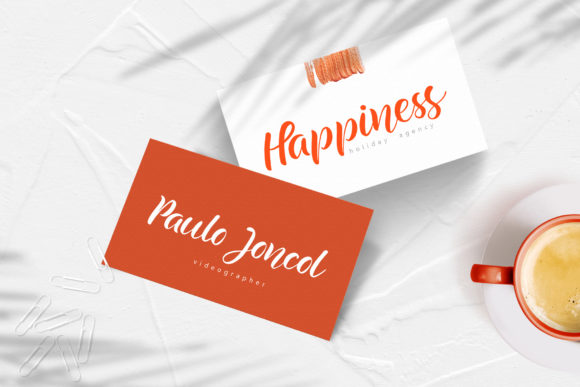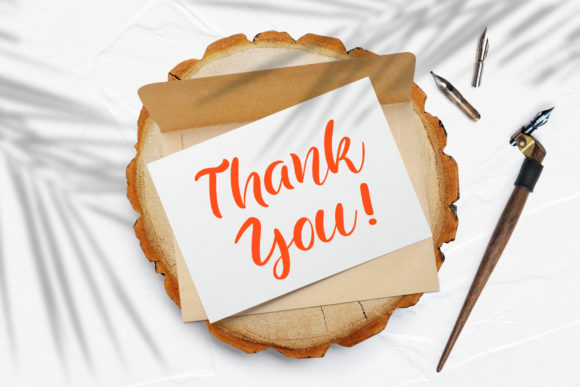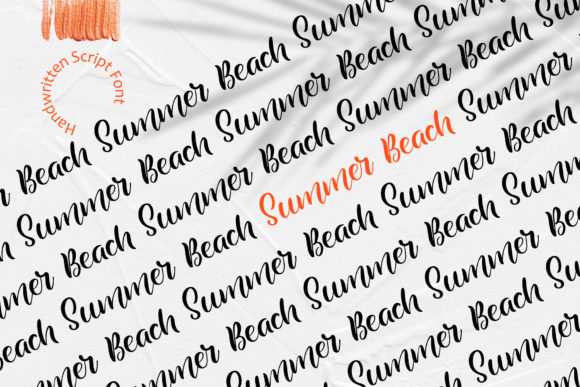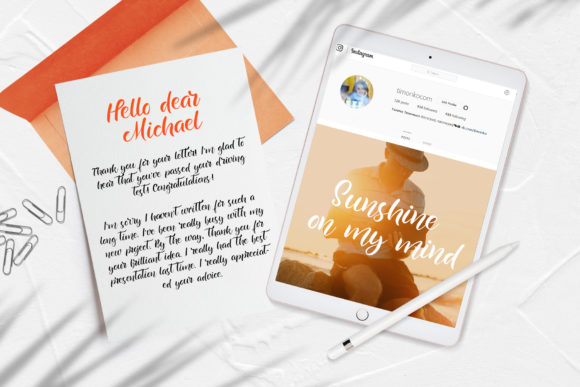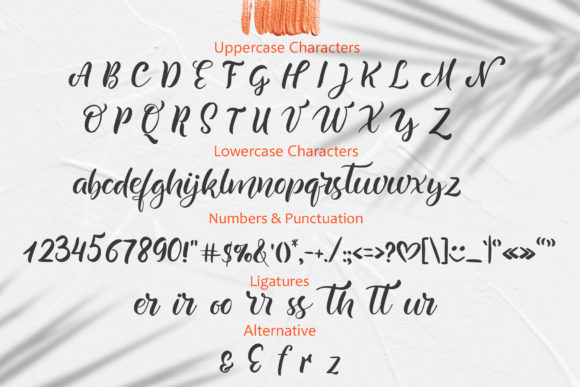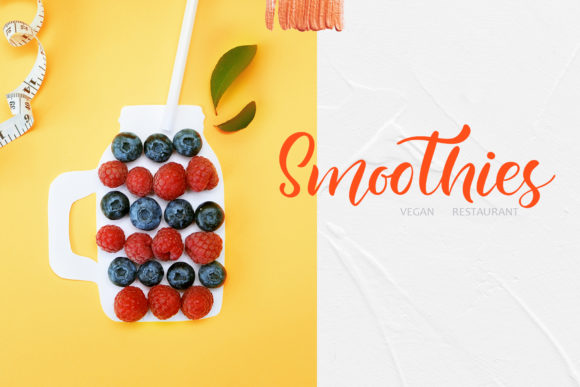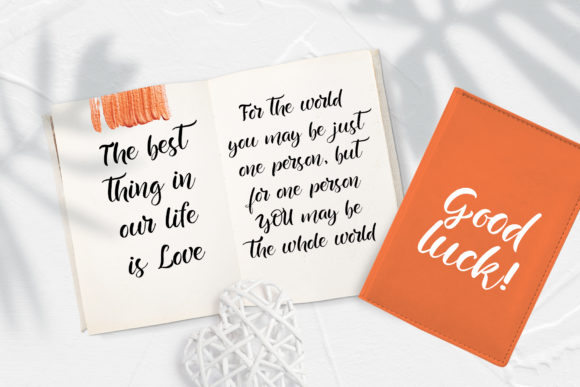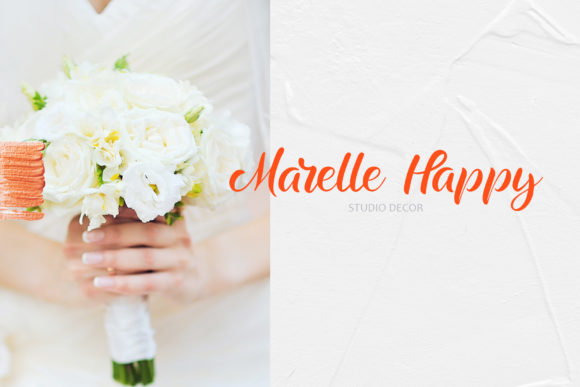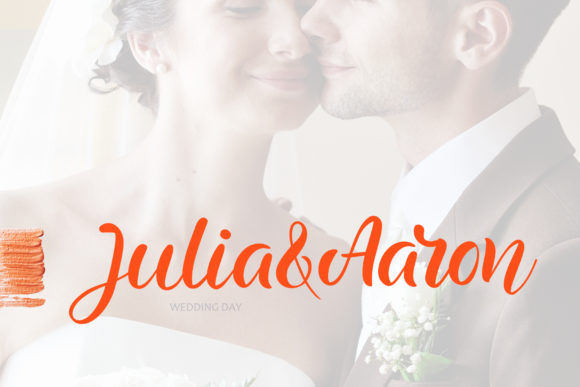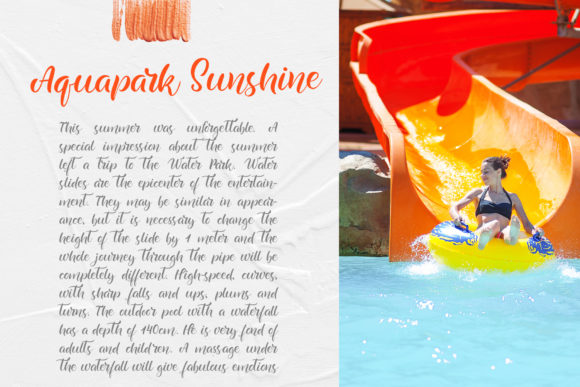
Summer Beach Font
About Summer Beach Font
Summer Beach is a handwritten display font with alternative flourishes included. It can add fun and excitement to your designs!